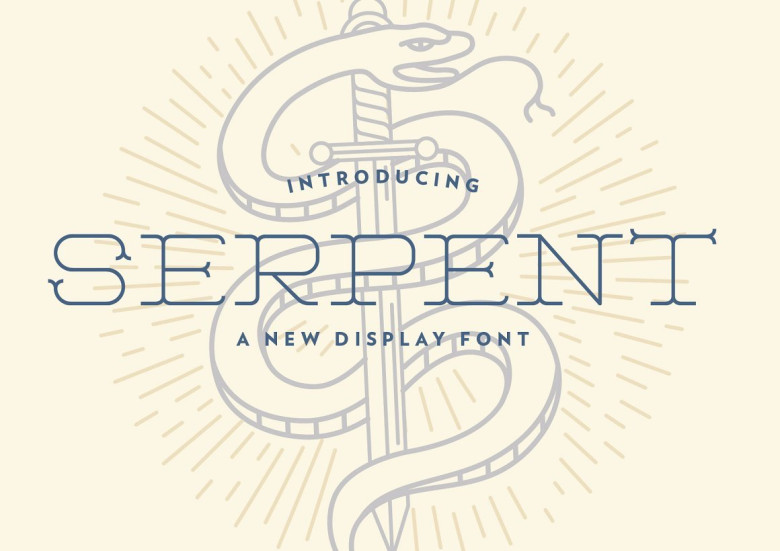
Serpent Display Font
Introducing Serpent Typeface! It is designed by Play Dead Studio, this is a premium font, are sold on creativemarket, but it was great, it is free today for download. Serpent is a geometric display font. It lends itself perfectly to sports design, logos, posters, packaging, brochures, t-shirts, and so much more!